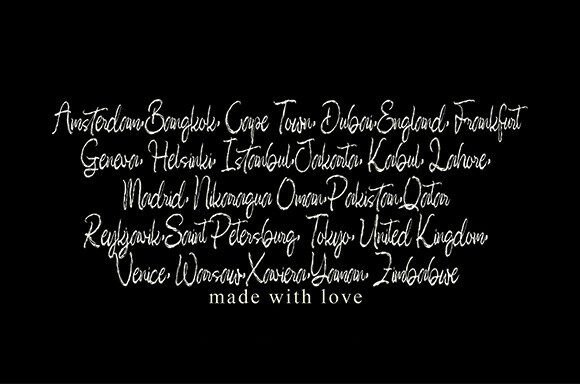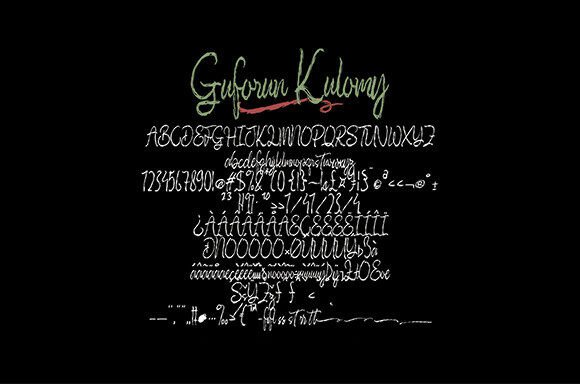
Introduction to Guforun Kulomy Font
This decorative handwritten script font , Guforun Kulomy , stands out with its artistic strokes and raw, organic texture.
Its free-flowing letterforms feature uneven edges and expressive curves, creating a natural, hand-painted feel that radiates personality and charm With a perfect balance of elegance and edge, itโ€™s ideal for bold branding, modern packaging, creative posters, or editorial titles that call for a handcrafted, authentic vibe.
Key Features of Guforun Kulomy Font
Why Choose Guforun Kulomy Font?
Guforun Kulomy Font offers exceptional quality and versatility, making it a valuable addition to your design toolkit. Whether you’re creating for personal projects or commercial use, Guforun Kulomy Font delivers professional results.